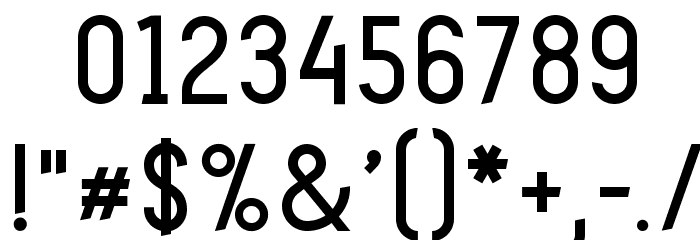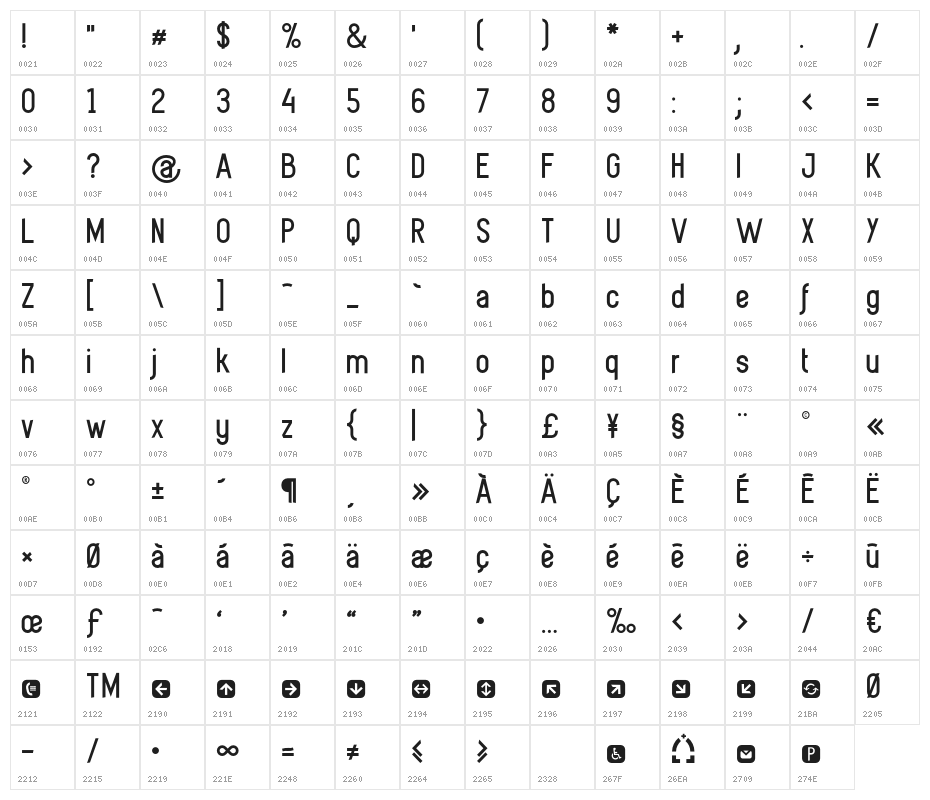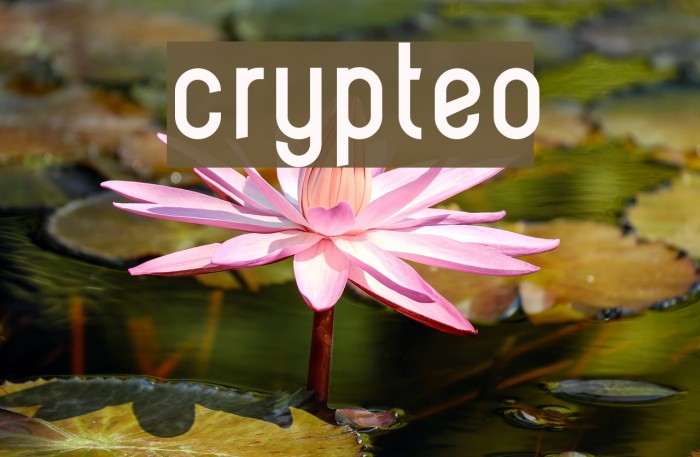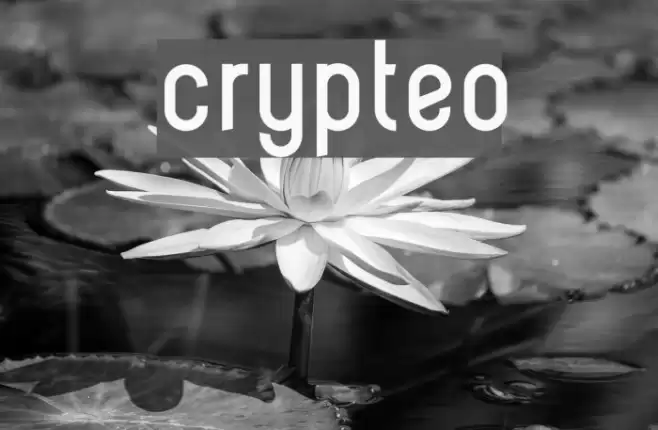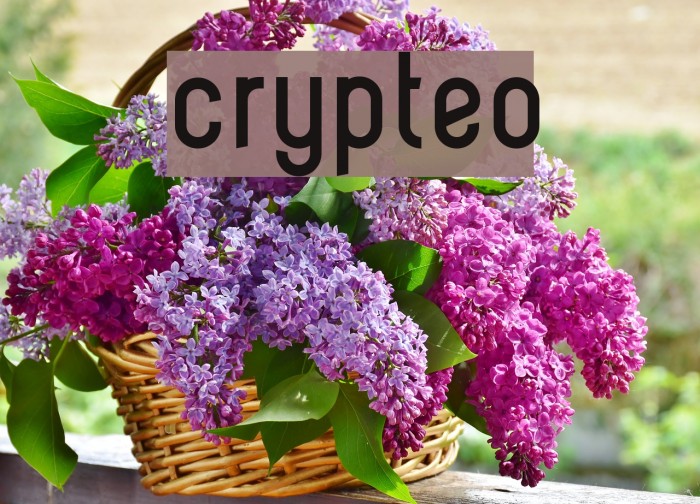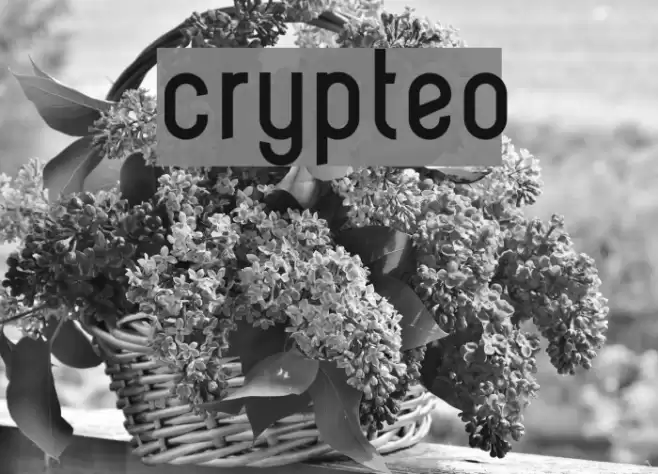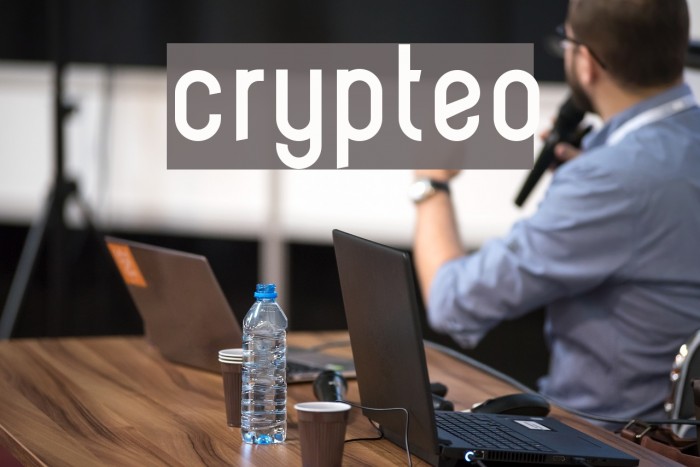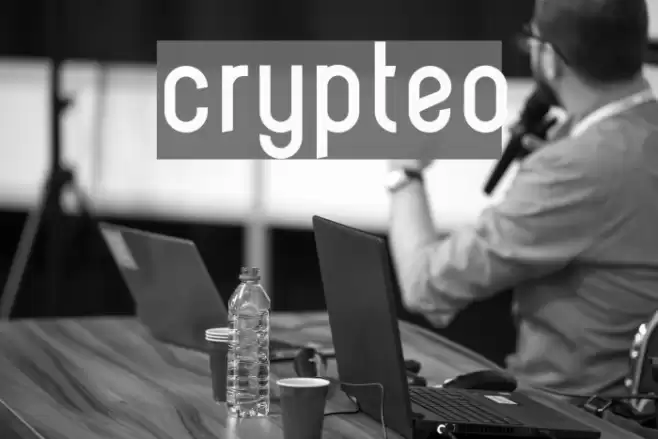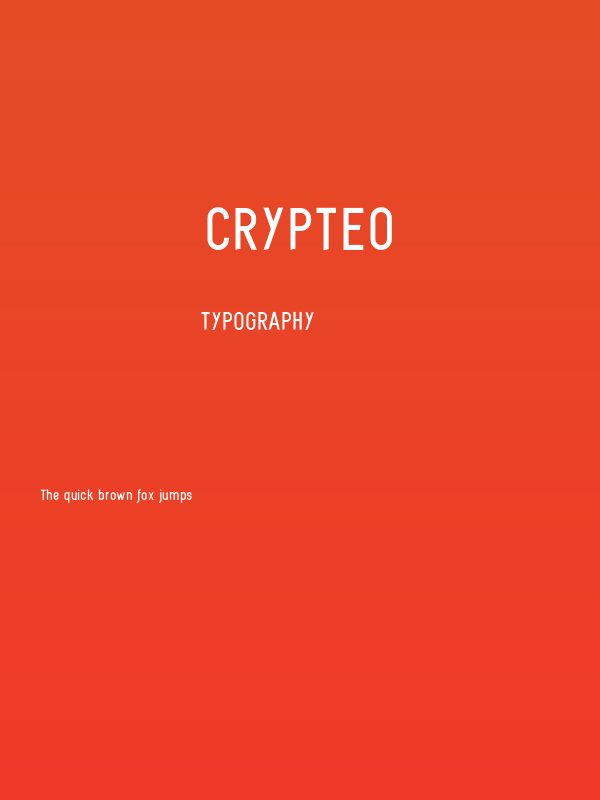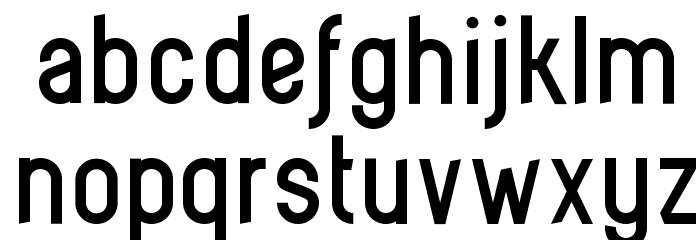
crypteo Font
crypteo Description
This font features a clean and modern sans-serif style with uniform stroke widths, giving it a sleek and contemporary appearance. The characters are well-proportioned, with a slightly condensed structure that enhances readability while maintaining a stylish look. The uppercase letters are bold and assertive, while the lowercase letters offer a softer, more approachable feel. The numerals are clear and distinct, making them suitable for various applications. Special characters are designed to complement the overall aesthetic, ensuring consistency across all glyphs. This font is versatile, suitable for both digital and print media, and works well in a variety of design contexts.